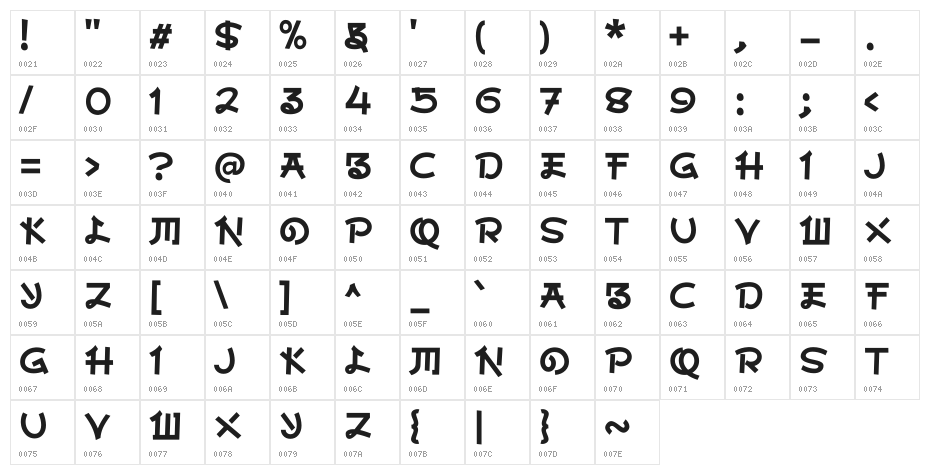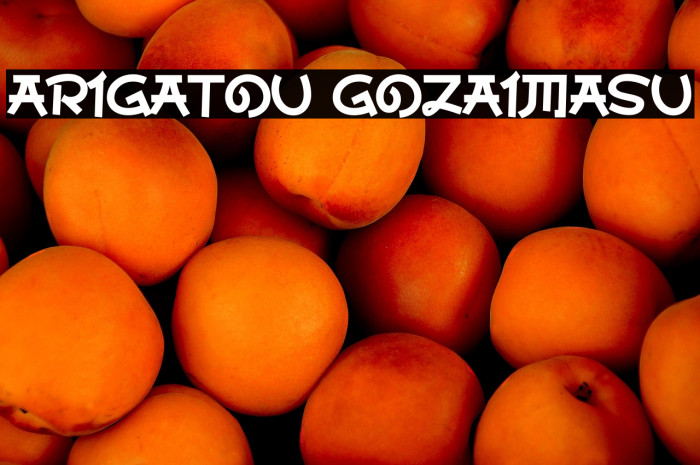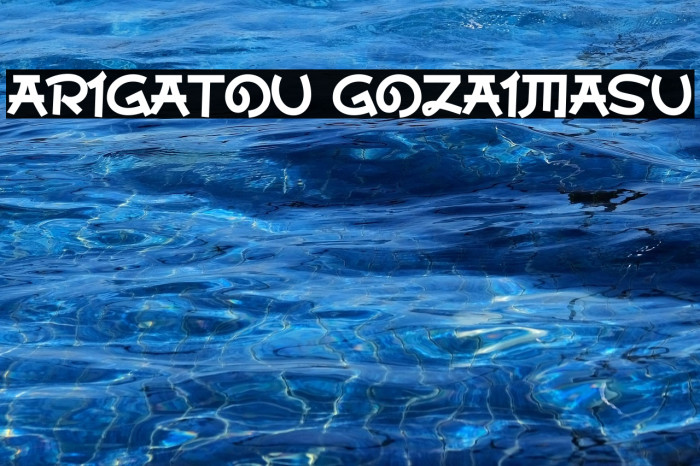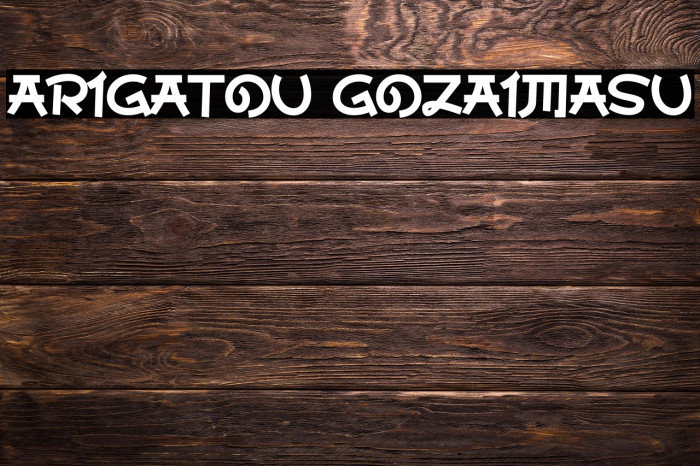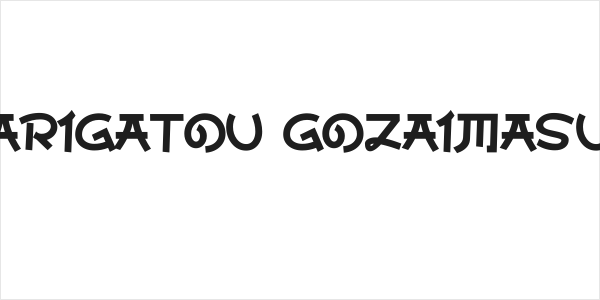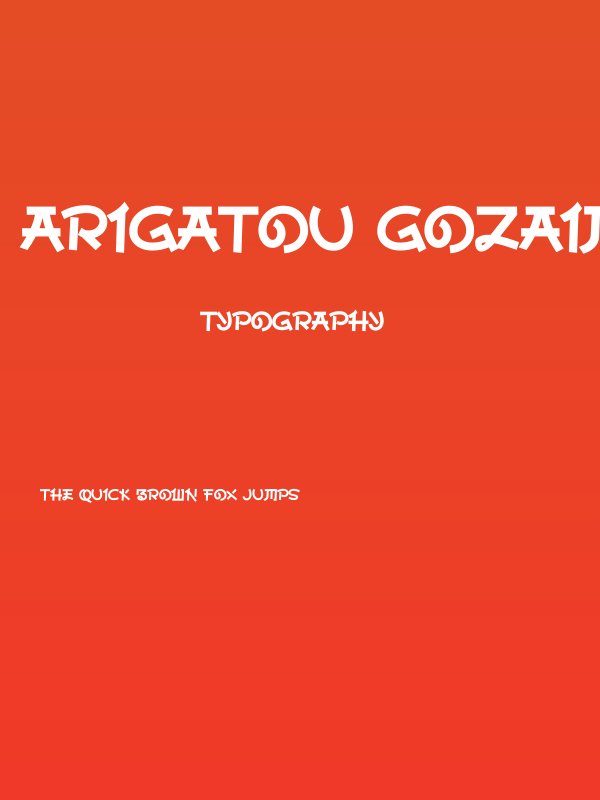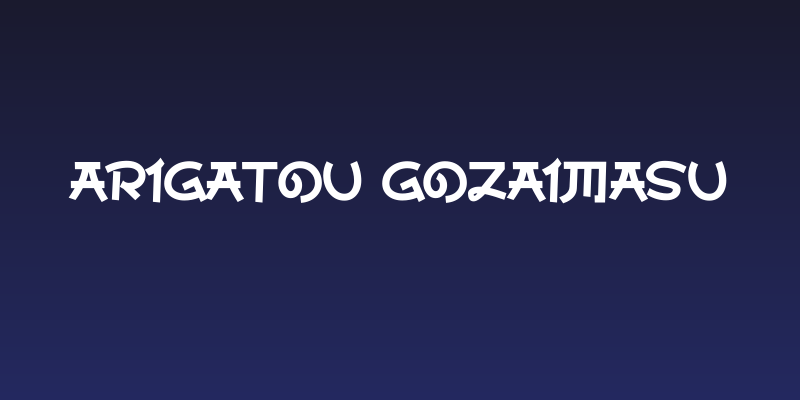
Arigatou Gozaimasu Font
Arigatou Gozaimasu Description
This font features a bold and dynamic style with a distinctly angular and geometric design. The characters exhibit a unique combination of sharp edges and smooth curves, giving it a modern and edgy appearance. The uppercase and lowercase letters maintain a consistent style, with the uppercase being more pronounced. Numbers and special characters follow the same design principles, ensuring uniformity across all glyphs. This font's boldness and distinctive character make it stand out, suitable for projects that require a strong visual impact.
| Proposed Projects | Ideal for branding, posters, video game graphics, and any project needing a bold, modern look. |